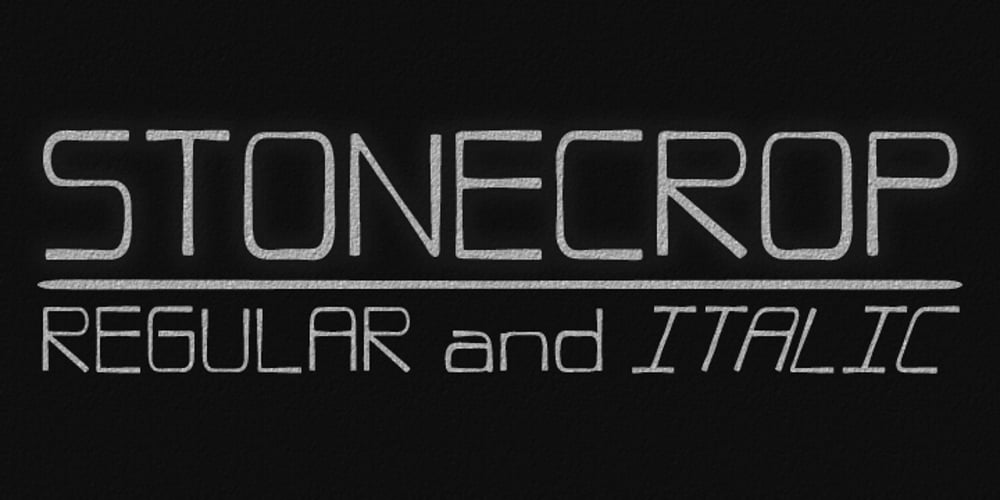
Stonecrop
Stonecrop font
Stonecrop Font Family was designed by Andrew Harper and published by Andrew Harper Fonts. Stonecrop contains 2 styles and family package options. Stonecrop is a font unified by bold, imposing lines as well as its use of rounded rectangles as the central stylistic shape. Stonecrop loosely conforms to the monospaced font style, with near-equal widths for all letters and numbers (but not all symbols/punctuation), however it does incorporate kerning for all types of glyphs where appropriate to aid in legibility. A perfect font for usages that demand consistency and precision, while still maintaining a quirky and stylized handwritten effect.